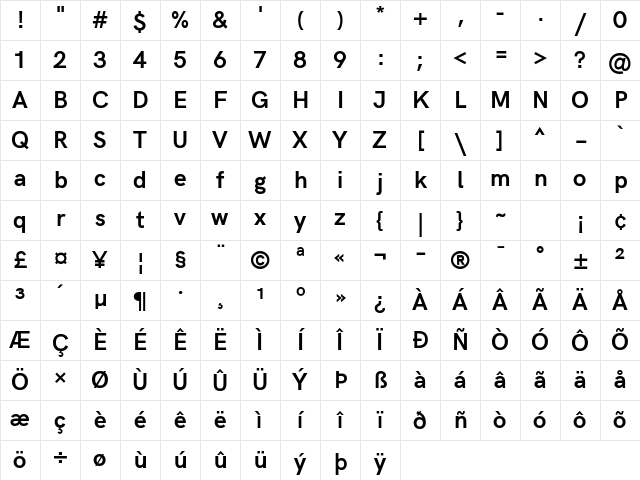
Complete Acari Sans Bold glyph index. Displaying only characters natively supported by Acari Sans Bold font.
Acari Sans is a composed and adaptable typeface that performs quietly and consistently across a wide range of design contexts. Its bold stroke weight gives it real presence on the page.